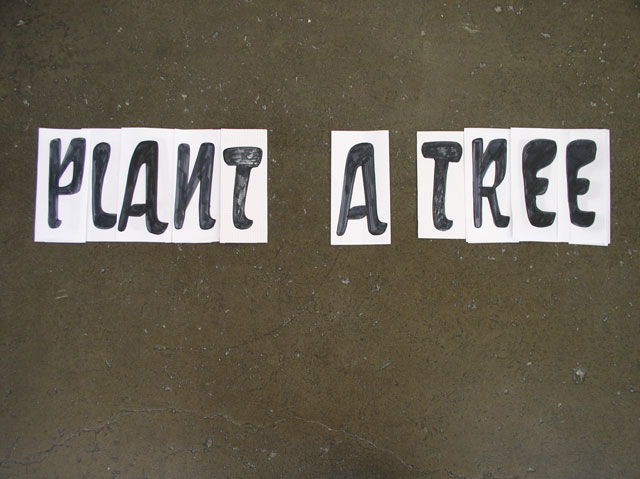
'Plant A Tree' is such a general idea by itself. Placing the text on the freeway, the idea becomes specific. It is trying to remind people that the more they drive the more CO2 are being created. Hopefully, it can invite people to plant trees in the city rather than destroying the city.
The organic font is created in inverse perspective for people to read easily from a car. It has been done by hand drawing then digitalize it.